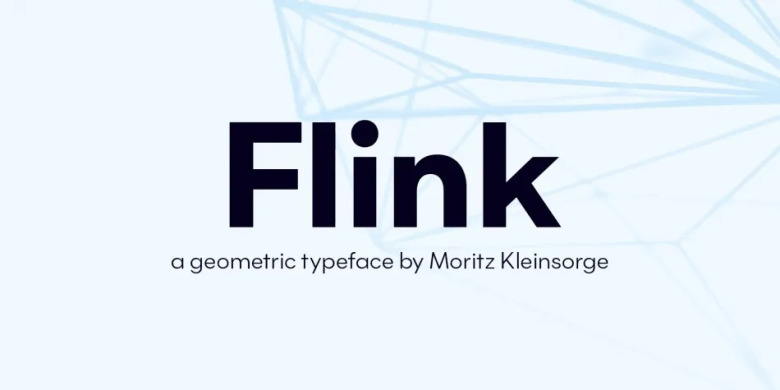
Flink Font Family
Flink Font
First Introducing Flink Sans Serif Font Family. Geometric typefaces have been ubiquitous in every typographer’s tool since the 1920s. That was the heyday that brought such iconic faces as Futura, Erbar, and Kabel to the world of type and turned it on its head.
Inspired by such early giants, as well as their later epigones with their own legacy , such as 1970’s Avant Garde Gothic, Flink is the Identity Letters take on the genre. Clean and focused on looks.
Flink Sans Serif Font Family